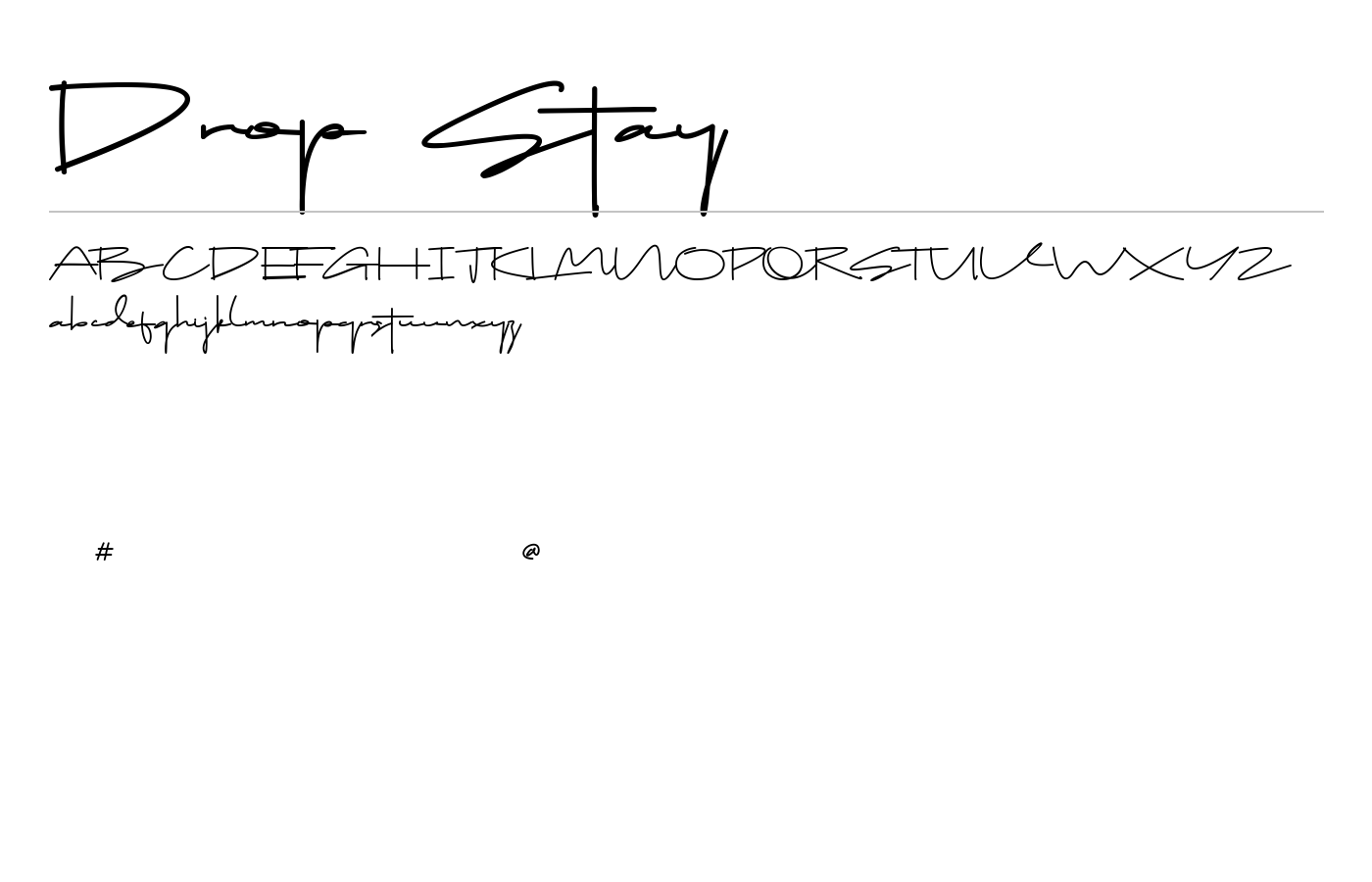
Drop Stay is a thin, handwritten script font that combines a casual, organic feel with a slightly edgy and modern twist. Its tall, narrow letterforms with irregular strokes give it a personal, artistic vibe, making it perfect for creative branding, invitations, and expressive headlines that need a human touch. This font works well when you want to add a unique, informal charm without sacrificing style or personality.
Drop Stay Font
About Drop Stay Font
| Font family | Drop Stay Font |
| Designer | Ahmad Khaidir |